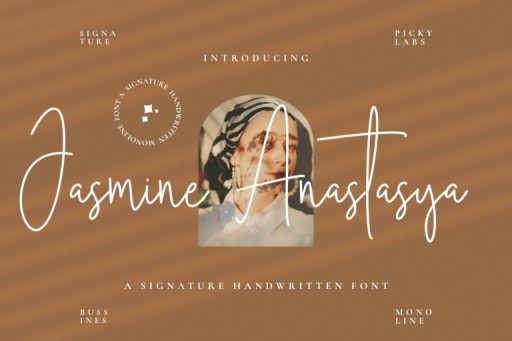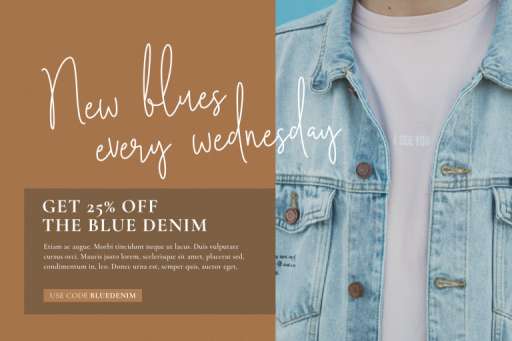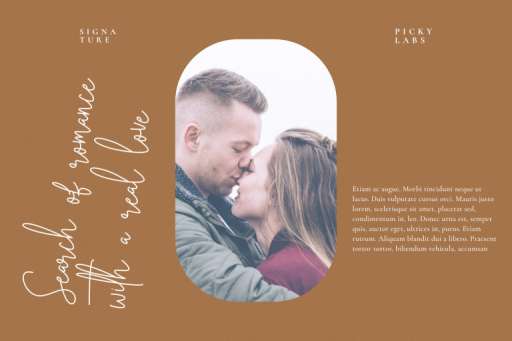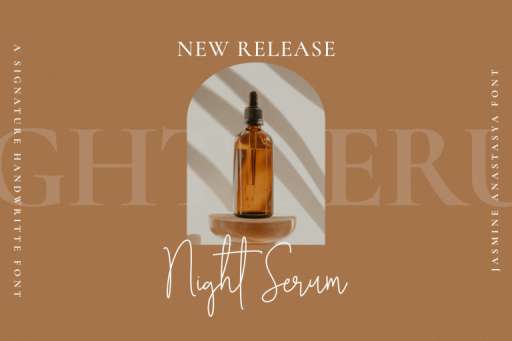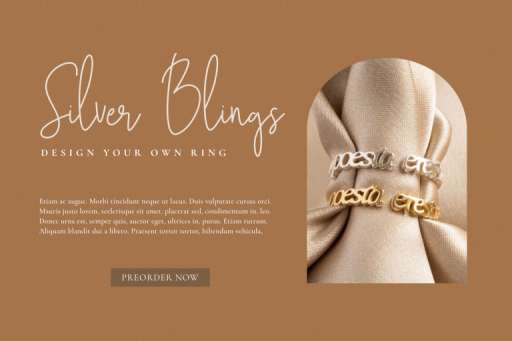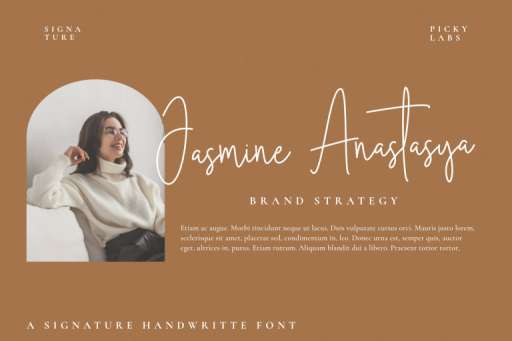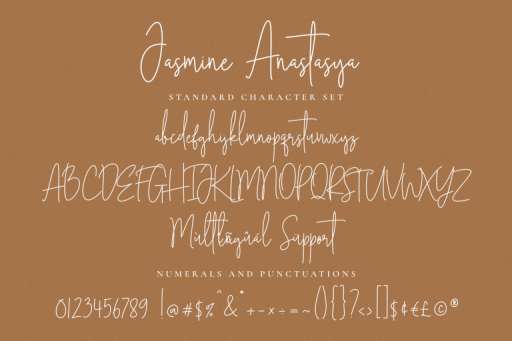
Jasmine Font - Script Business Font From Jimtype Studio
Jasmine Anastasya Signature
Jasmine Anastasya – Signature Business Font
Jasmine Anastasya Signature font is A casual, clean, free-flowing, monoline script font. Its casual charm makes it appear wonderfully down-to-earth, readable, and, ultimately, incredibly versatile.
Jasmine Anastasya Signature is a great choice for branding, logos, product design, business cards, posters, blog posters, and many other design projects.
Jasmine Anastasya Signature Font
Jasmine Anastasya Signature font is A casual, clean, free-flowing, monoline script font. Its casual charm makes it appear wonderfully down-to-earth, readable, and, ultimately, incredibly versatile.